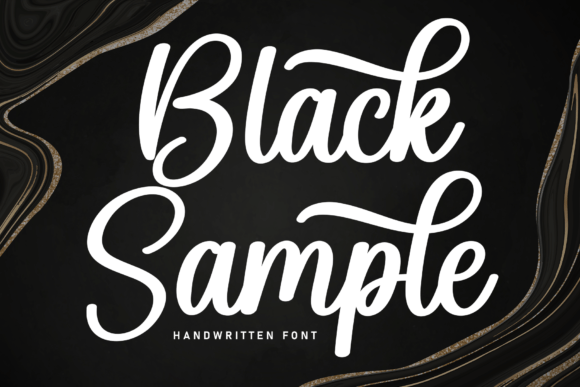
The Power of Black Sample Font: A Designer’s Best Friend
I’ll never forget the time I was working on a project for a client who wanted a bold, eye-catching headline that would make their competitors jealous. I scoured the internet for the perfect font, but nothing seemed quite right. That was until I stumbled upon Black Sample Font. This bold, handwritten font has been a game-changer for my designs, and I’m excited to share its awesomeness with you! 😊
An Honest Review of Black Sample Font
• ✨ Bold and eye-catching: Black Sample Font is perfect for making a statement. Its thick, dark lines grab attention and demand to be noticed.
• ✅ Easy to read: Despite its boldness, the font is surprisingly easy to read, even in smaller sizes.
• 💯 Versatile: Black Sample Font works well in a variety of design contexts, from posters and flyers to social media graphics and website headers.
While Black Sample Font is an amazing font, it’s not perfect. Here are a few things to keep in mind:
• 🤔 Limited use in body text: Due to its boldness, Black Sample Font can be overwhelming for longer blocks of text. Stick to headlines, titles, and short phrases for best results.
• ⚠️ May not work well in small sizes: While the font is easy to read, it can become a bit blurry or pixelated when scaled down too far. Use it at larger sizes for maximum impact.
4. Explore OpenType features like glyphs and stylistic alternates to add extra flair to your text.
The Backstory of Black Sample Font
Black Sample Font was created by a talented designer who wanted to create a font that would make a statement. Inspired by the bold lines of a heavy marker, this font is perfect for designers who want to add a touch of personality to their work.
Q: Is Black Sample Font suitable for body text?
A: While Black Sample Font is easy to read, it’s best suited for headlines, titles, and short phrases. For longer blocks of text, consider a more traditional font.
Q: Does Black Sample Font come with OpenType features?
A: Yes, Black Sample Font comes with a range of OpenType features, including glyphs and stylistic alternates.